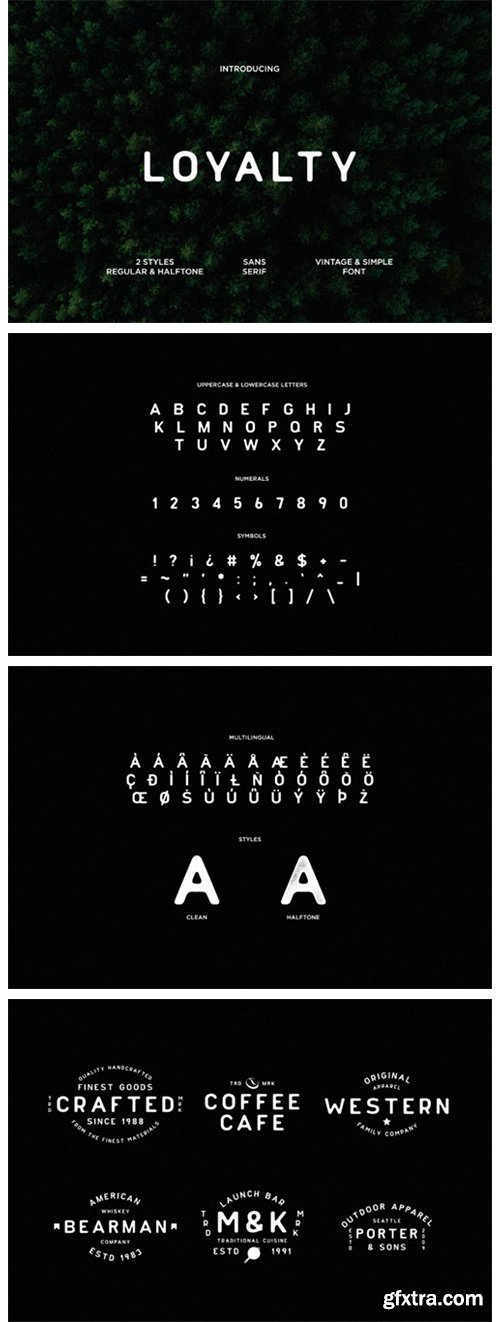
忠诚字体
Loyalty Font
Loyalty is a vintage styled and neat sans serif font. It can easily be matched to an incredibly large set of projects, so add it to your creative ideas and notice how it makes them stand out!